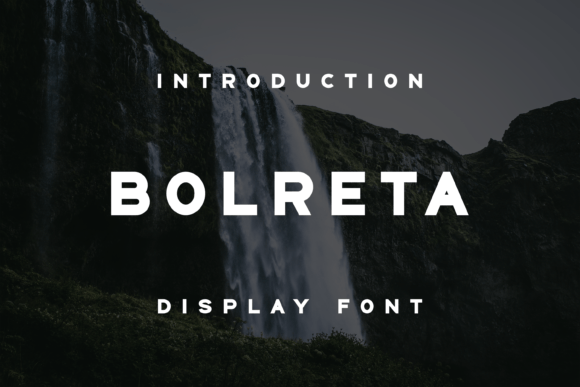
The Ultimate Guide to Bolreta Font: Elevate Your Designs with this Stunning Display Font
I’ll never forget the time I was working on a project for a client who wanted a bold, eye-catching font to make their brand stand out. I scoured the internet, tried countless fonts, but nothing seemed quite right. That was until I stumbled upon Bolreta Font. This cool and unique display font has been a game-changer for my design workflow, and I’m excited to share its awesomeness with you! 😊
An Honest Review of Bolreta Font
What I Love About Bolreta Font
• ✨ Highly detailed and neatly crafted: Bolreta Font is meticulously designed, with intricate details that make it perfect for display purposes.
• ✅ Versatile: Whether you’re working on a branding project, a poster, or a social media graphic, Bolreta Font adapts seamlessly to various design contexts.
• 💥 Attention-grabbing: This font is designed to make a statement, and it certainly does! Its unique style is sure to turn heads and leave a lasting impression.
While Bolreta Font is an excellent addition to any font library, there are a few minor considerations to keep in mind:
• 🤔 Legibility at small sizes: As with many display fonts, Bolreta may not be the best choice for body text or small font sizes. It’s best used for headlines or titles.
• ⚠️ Glyph support: While Bolreta Font has an impressive range of glyphs, some users may find that it lacks specific characters or symbols. Always review the font’s capabilities before committing to a project.
Bolreta Font was designed with the intention of creating a unique, attention-grabbing display font. Its creator aimed to craft a font that would be both beautiful and functional, suitable for a wide range of design applications. While the exact story behind Bolreta Font might be unknown, its impact on the design community is undeniable.
What is Bolreta Font best used for? Bolreta Font is ideal for display purposes, such as headlines, titles, and short text passages. Its unique style makes it perfect for branding, posters, social media graphics, and more.